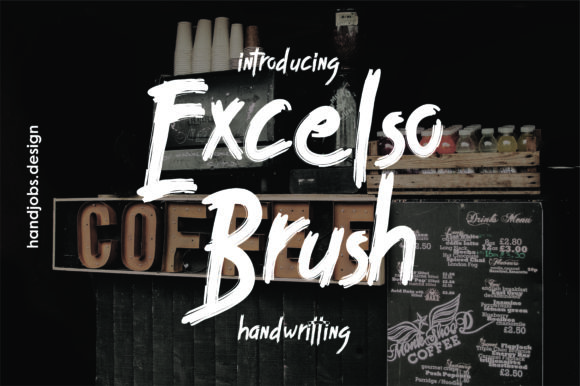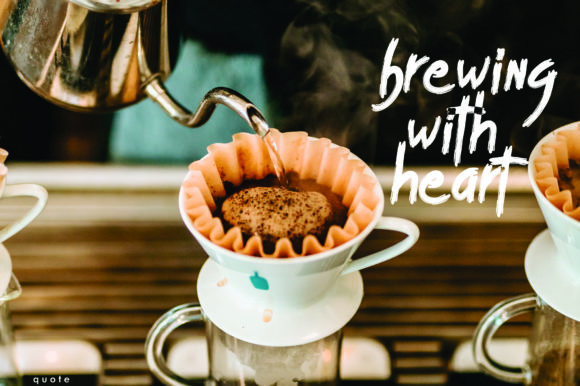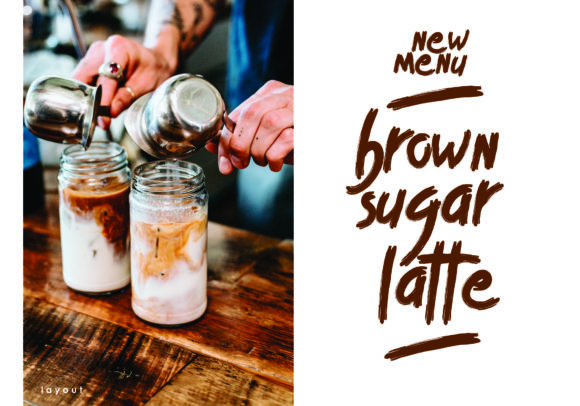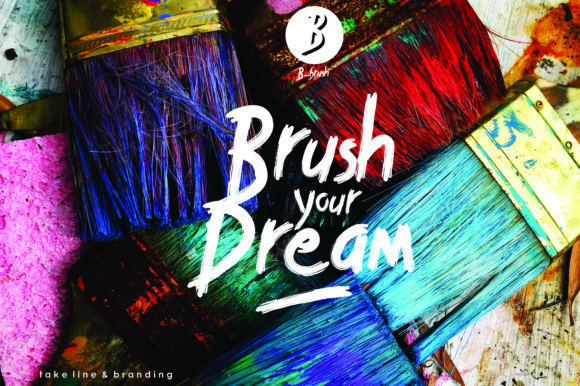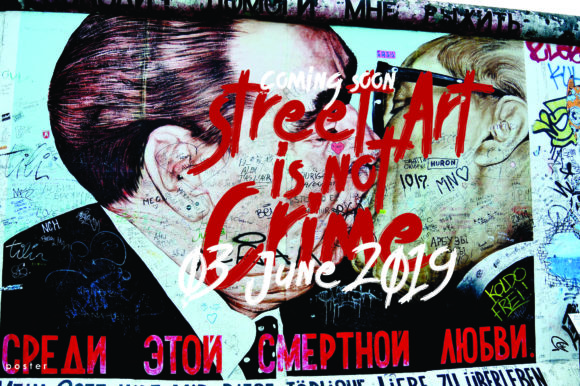
Excelco Brush Font
About Excelco Brush Font
The Excelco Brush is a striking typeface. It was inspired by brush strokes and coffee. It can be used for posters, magazines, menu’s, branding, and much more!